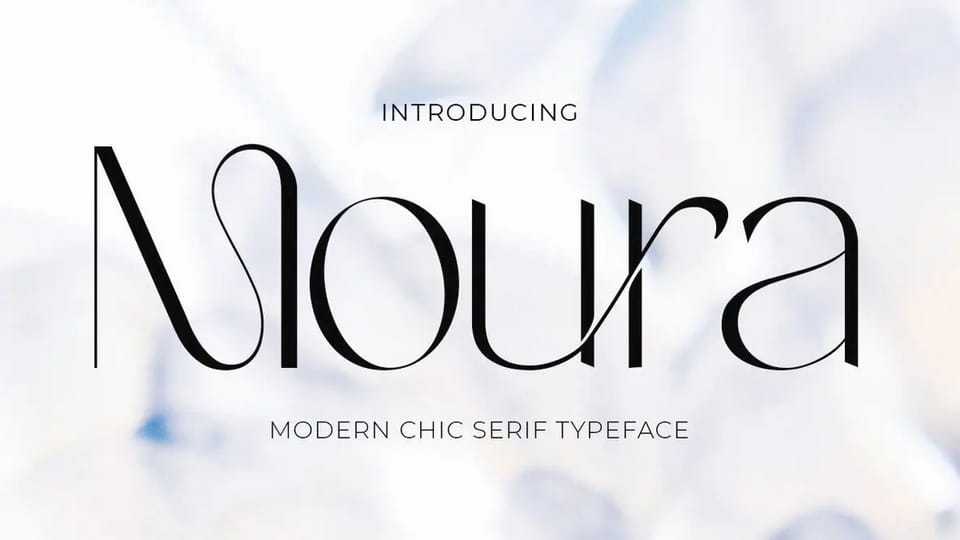
Download Moura font, a sculpted modern sans serif typeface that speaks the visual language of elegance, grace, and creative confidence. With a clean, contemporary serif base accentuated by expressive alternates and stylish ligatures.